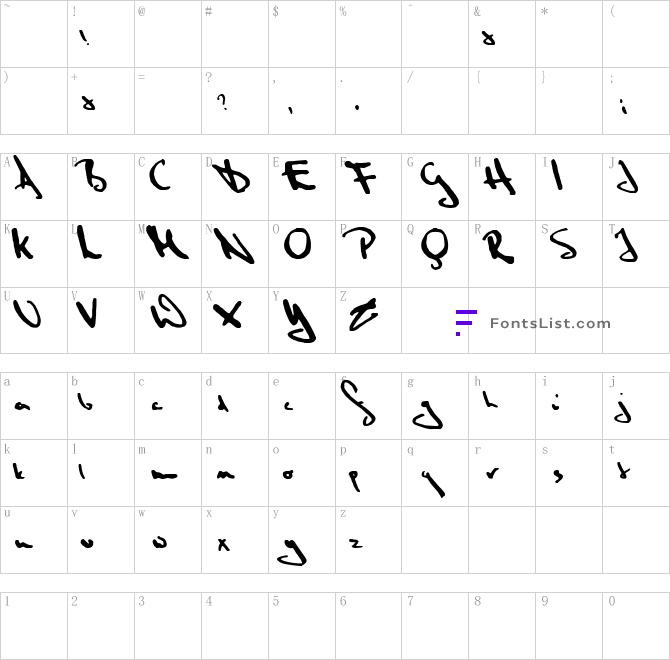
- Font Name:Ascension Day
Ascension-Day.ttf is a very beautiful artistic font, Ascension-Day.ttf is widely used in the design and printing of various books and pictures,Ascension-Day.ttf has a strong visual impact,Ascension-Day.ttf is a commonly used font in newspapers, magazines and books, and is used in posters, e-commerce Poster design, store design, logo design, font design and other fields.Ascension-Day.